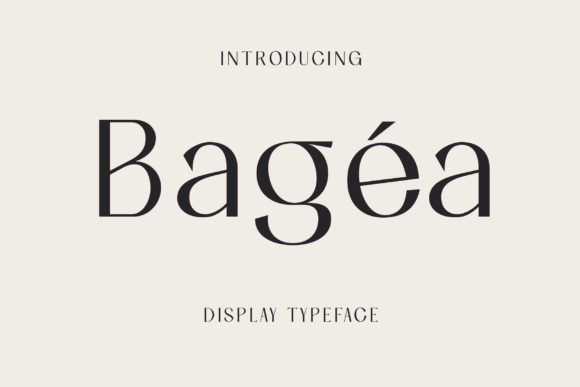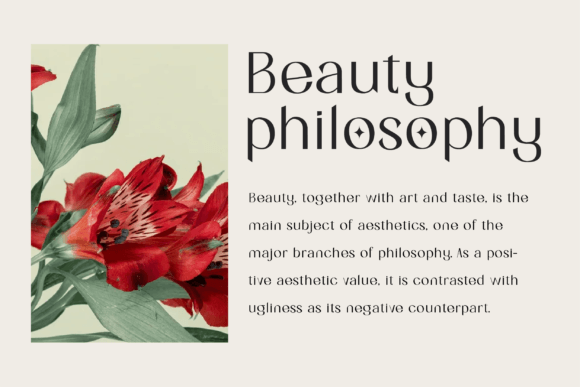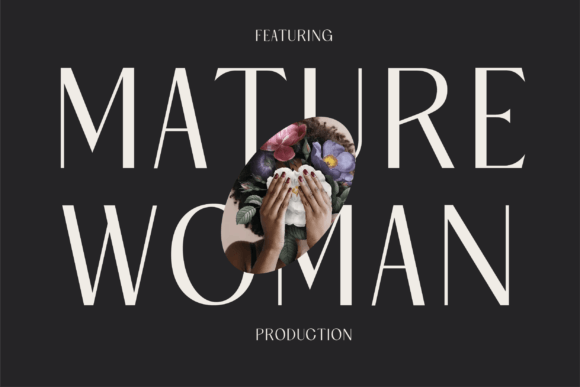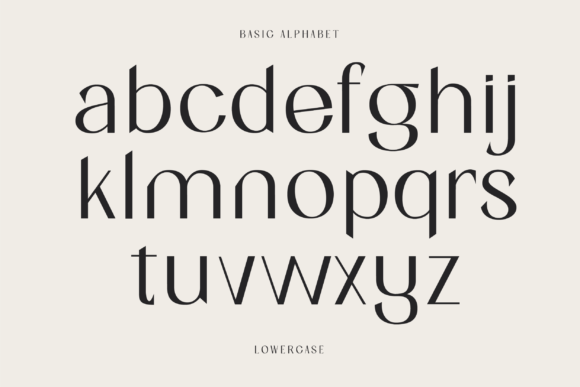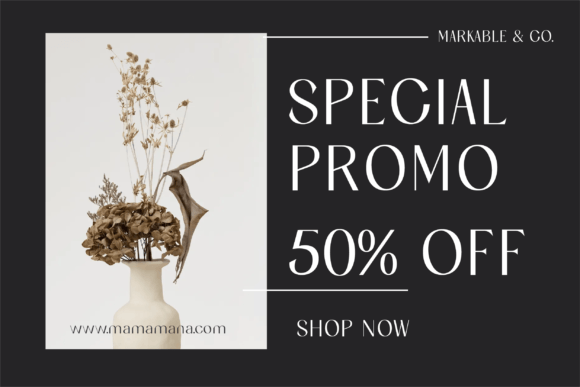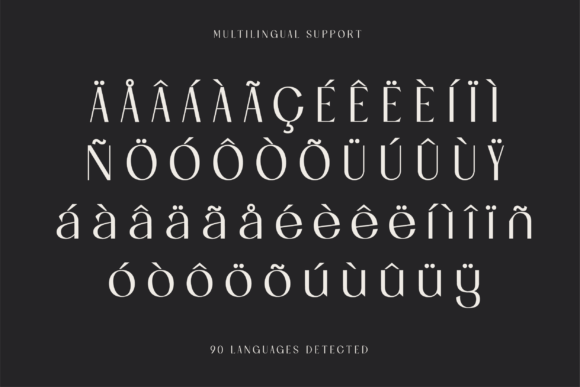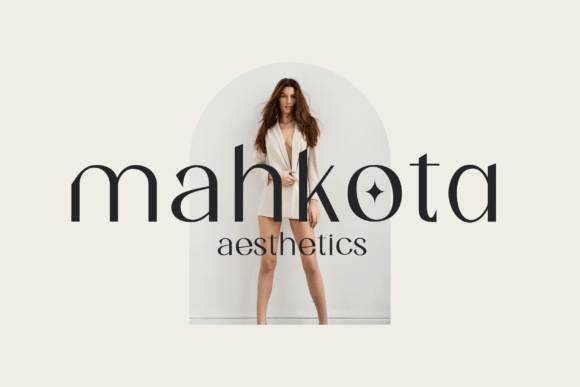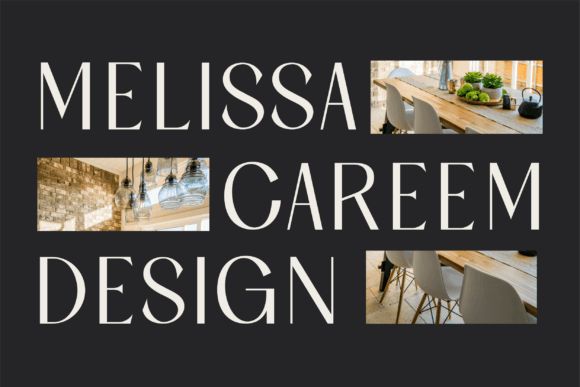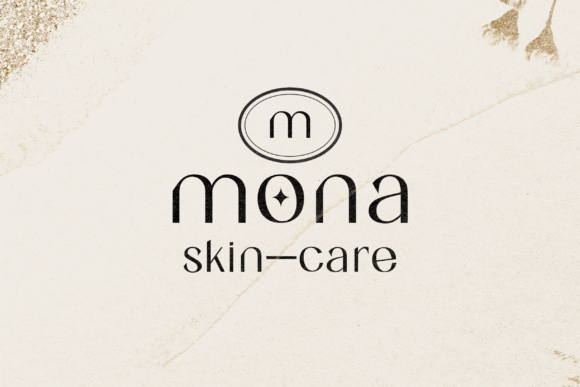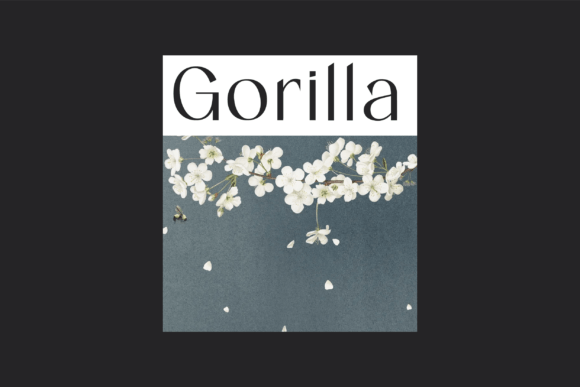
Bagea
Bagea: A Bold and Sleek Slab Serif Font
Bagea is a slab serif font with a sleek, yet simplistic design that stands out boldly against any background. This versatile typeface is perfect for use in movie titles, album art, fashion designs, and more. Its unique characteristics make it legible from much larger distances than typical fonts, while its elegant letterforms give a feeling of luxury.
Key Features of Bagea
• Bold Design: Offers a strong and impactful look suitable for various applications.
• Slab Serif Structure: Features distinctive serifs that add character and style.
• Enhanced Legibility: Readable from greater distances compared to typical fonts.
• Elegant Curves: Smooth curves contribute to sophisticated typography.
Ideal Uses for Bagea
Bagea’s unique characteristics make it particularly well-suited for:
When incorporating Bagea into your designs, consider these tips:
• Use with a simple background to highlight your branding effectively.
• Experiment with different sizes to take advantage of its enhanced legibility.
• Utilize its elegant curves to add sophistication to your typography.
Bagea is an excellent choice for designers looking to add a bold and sleek slab serif font to their typographic toolkit. Its ability to stand out and remain legible at larger distances makes it ideal for projects that require high visibility and impact. Whether you’re working on movie titles, creating album art, or developing fashion branding, Bagea offers the perfect blend of boldness and elegance.
Furthermore, Bagea’s unique design allows it to shine in various contexts. From luxury product packaging to high-impact advertising, this font can elevate your projects with its distinctive style. Its bold yet refined appearance works particularly well in designs that require a strong visual presence while maintaining a sense of sophistication.
In conclusion, Bagea is a font that truly captures the essence of modern design and impact in typography. Its ability to work well in both large-scale applications and more intricate designs showcases its versatility. For those looking to add a touch of bold elegance to their work, Bagea can enhance themed creations with its distinctive style. It’s the perfect choice for designers seeking to make a strong, stylish impact across a wide range of creative projects.